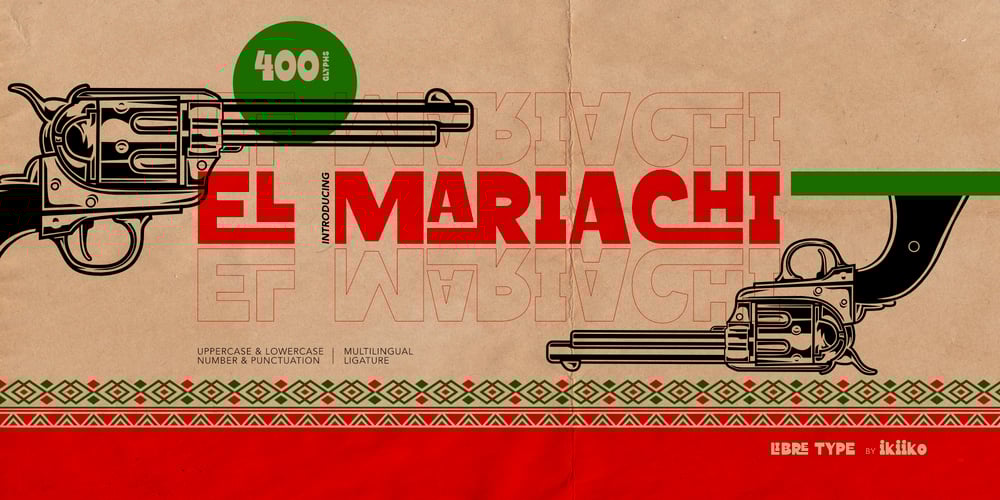
El Mariachi
El Mariachi font
El Mariachi Font Family was designed by Wahyu Eka Prasetya, Andhika Pradana and published by IKIIKOWRK. El Mariachi contains 1 styles and family package options. Introducing El Mariachi – Libre Type, created by ikiiko.El Mariachi is a unique typeface inspired by a Mexican vibe. A simple, bold sans serif typeface combined with attractive ligatures gives this font a strong character. This font is perfect to create layout for vintage design, mexican brand product, movie poster, food packaging, fashion product, and another fun project to a have unique or vintage look.What’s included? Uppercase & Lowercase Number & Punctuation Ligature Multilingual Support Get also a good offer & FREEBIE at our site : www.ikiiko.comEnjoy our font and if you have any questions, you can contact us by email : ikiikowrk@gmail.com